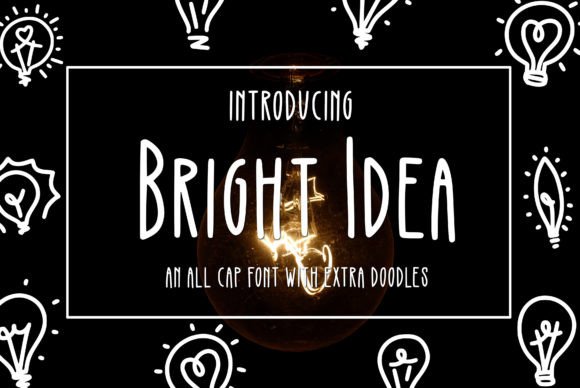
Bright Idea Font: Adding a Spark of Creativity to Your Designs
Are you tired of using the same old fonts for your designs? Do you want to add a touch of personality and energy to your projects? Look no further than the Bright Idea Font! This clever all-caps font is designed to shine with creativity and imagination, making it perfect for DIY projects, quirky headlines, and adding a hand-drawn charm to your next venture.
What Makes Bright Idea Font Special?
- Playful Doodles: Bright Idea Font comes with playful doodles that evoke a sense of fun and imagination. These doodles add a touch of whimsy to your designs, making them stand out from the crowd.
- All-Caps Design: This font is designed specifically for all-caps text, making it perfect for headlines, titles, and emphasis.
- Uneven Strokes: The slightly uneven strokes of Bright Idea Font give it a hand-drawn feel, adding a touch of charm and personality to your designs.
- Quirky and Artistic: This font is ideal for designs that need a quirky, artistic flair. Whether you’re creating a logo, poster, or social media graphic, Bright Idea Font is sure to make your design shine.
Perfect for a Variety of Design Projects
Bright Idea Font is versatile and can be used for a wide range of design projects, including:
- DIY Projects: Add a touch of personality to your DIY projects, such as crafting, scrapbooking, or home decor.
- Quirky Headlines: Use Bright Idea Font to create eye-catching headlines for your blog posts, articles, or social media graphics.
- Logos and Branding: This font is perfect for creating unique and memorable logos for your business or brand.
- Posters and Flyers: Add a touch of whimsy to your posters and flyers with Bright Idea Font.
- Social Media Graphics: Use this font to create engaging and shareable social media graphics.
Tips for Using Bright Idea Font
Here are some tips for getting the most out of Bright Idea Font:
- Use it sparingly: While Bright Idea Font is perfect for adding a touch of personality to your designs, it can be overwhelming if used too much. Use it sparingly to create emphasis and add visual interest.
- Experiment with colors: Bright Idea Font looks great in a variety of colors, so don’t be afraid to experiment and find the perfect color scheme for your design.
- Pair it with other fonts: Bright Idea Font pairs well with a variety of other fonts, so try pairing it with a serif or sans-serif font to create visual interest.
The Benefits of Using Bright Idea Font
There are many benefits to using Bright Idea Font in your designs, including:
- Unique and Memorable: Bright Idea Font is a unique and memorable font that will help your designs stand out from the crowd.
- Easy to Read: Despite its playful design, Bright Idea Font is easy to read, making it perfect for headlines and emphasis.
- Versatile: This font is versatile and can be used for a wide range of design projects.
- Time-Saving: With Bright Idea Font, you can create professional-looking designs in no time.
In conclusion, Bright Idea Font is a clever all-caps font that shines with personality and energy. With its playful doodles, slightly uneven strokes, and whimsical charm, it’s perfect for adding a touch of creativity to your designs. Whether you’re working on a DIY project, crafting quirky headlines, or adding a hand-drawn charm to your next venture, Bright Idea Font is sure to illuminate your designs. So why wait? Download Bright Idea Font today and start creating designs that shine!